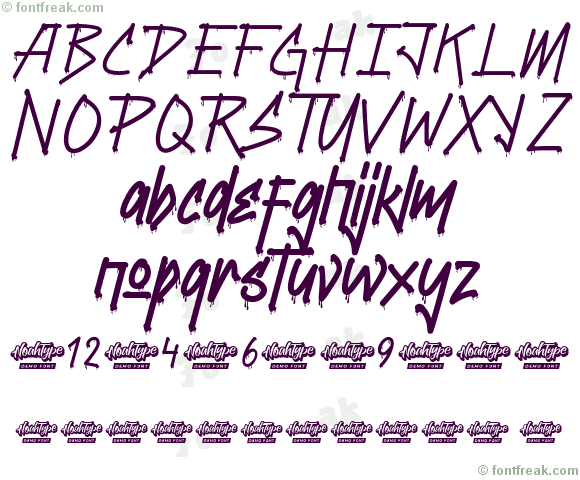
Sterous Demo
The Sterous Demo font by Noah Type is a captivating display typeface that exudes a unique character and artistic flair. As a handwritten style font, Sterous Demo features fluid strokes and a slightly irregular line quality that mimics the spontaneity of natural handwriting. The design is characterized by medium stroke weight, which creates a balanced contrast without overwhelming the viewer. The letters have generous spacing, allowing for easy readability while maintaining an engaging visual rhythm. Decorative elements, such as subtle flourishes and varying letter heights, add an organic touch, making it a versatile choice for various creative projects.
This font is ideally suited for use in wedding invitations, where its elegant and personal touch can enhance the overall aesthetic. Additionally, it works wonderfully for movie posters, providing a dramatic flair that captures attention. Restaurant menus can also benefit from Sterous Demo, as its distinctive style adds a modern twist that aligns well with contemporary dining experiences. Graphic designers and content creators looking to add a unique touch to their branding materials will find this font particularly appealing. Small business owners can leverage Sterous Demo for promotional materials, social media graphics, and packaging designs, creating a memorable brand identity.
What sets the Sterous Demo font apart is its ability to combine creativity with functionality. It stands out not only for its artistic flair but also for its versatility across various applications. The Sterous Demo font free download allows users to explore its potential without any financial commitment, making it accessible for both budding designers and established professionals. Whether you’re seeking to infuse a project with personality or aiming for a modern yet approachable look, Sterous Demo is an excellent choice that brings your creative visions to life.